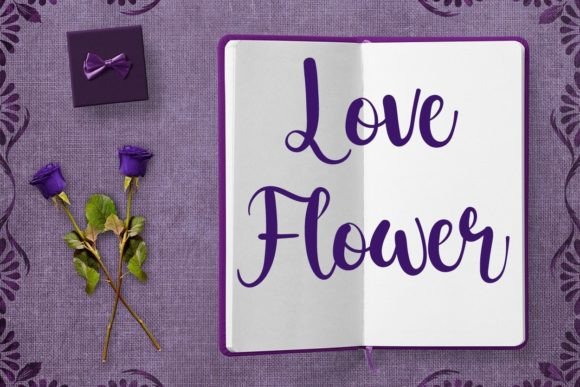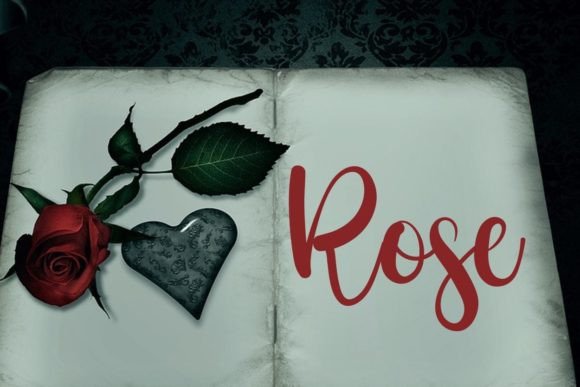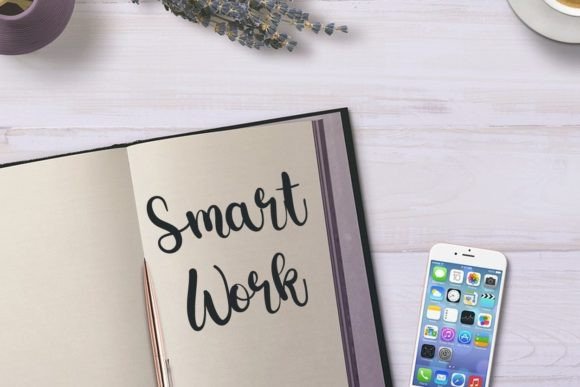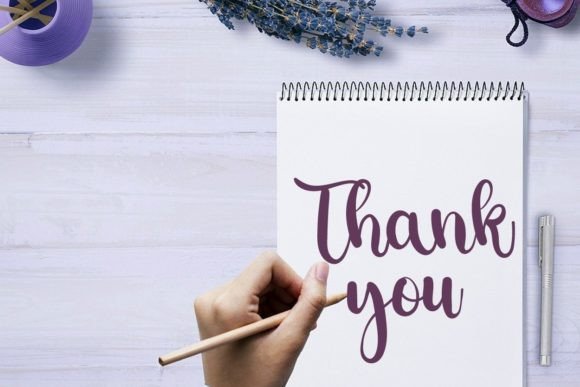
Introducing Diary Font: Elevate Your Designs with a Fresh and Beautiful Typeface
In the world of design, typography plays a crucial role in conveying messages, expressing creativity, and capturing the audience’s attention. A well-chosen font can make or break a design project. If you’re a designer, crafter, or business owner looking for a unique and versatile font to elevate your visual identity, look no further than Diary Font. In this article, we’ll explore the features, benefits, and uses of Diary Font, and why it’s an excellent choice for your design purposes.
What is Diary Font?
Diary Font is a modern, fresh, and beautiful typeface designed to add a touch of elegance and sophistication to your designs. Its clean lines, subtle curves, and balanced proportions make it an excellent choice for a wide range of applications, from digital to print. Whether you’re creating a YouTube banner, cover logo mockup, wedding invitation, ID card, flyer, or craft project, Diary Font is the perfect companion to help you achieve your creative vision.
Key Features of Diary Font
- Unique and Simple Design: Diary Font boasts a distinctive and straightforward design that sets it apart from other fonts. Its simplicity ensures that your message takes center stage, while its uniqueness adds a touch of personality to your designs.
- Versatility: This font is incredibly versatile, making it suitable for various design projects, from digital graphics to print materials.
- Legibility: Diary Font is designed to be easily readable, even at small sizes, ensuring that your message is conveyed clearly and effectively.
- Customizable: With Diary Font, you can experiment with different colors, sizes, and styles to match your brand’s identity and design aesthetic.
Benefits of Using Diary Font
By incorporating Diary Font into your design projects, you can experience a range of benefits that can elevate your visual identity and help your business progress and develop.
- Enhanced Visual Appeal: Diary Font adds a touch of elegance and sophistication to your designs, making them more visually appealing and engaging.
- Consistency: Using a consistent font across your designs helps to establish a strong brand identity and reinforces your message.
- Competitive Edge: By using a unique and high-quality font like Diary Font, you can differentiate your designs from others and establish a competitive edge in your industry.
Design Applications for Diary Font
Diary Font is an incredibly versatile typeface that can be used in a wide range of design applications, including:
- YouTube Banners: Create eye-catching YouTube banners that showcase your brand’s personality and style.
- Cover Logo Mockups: Design stunning cover logo mockups that showcase your brand’s logo and message.
- Wedding Invitations: Add a touch of elegance and sophistication to your wedding invitations and save the date cards.
- ID Cards: Create professional and stylish ID cards that reflect your brand’s identity.
- Flyers: Design attention-grabbing flyers that promote your products, services, or events.
- Crafts: Use Diary Font to add a personal touch to your craft projects, such as handmade cards, gift tags, and scrapbooking.